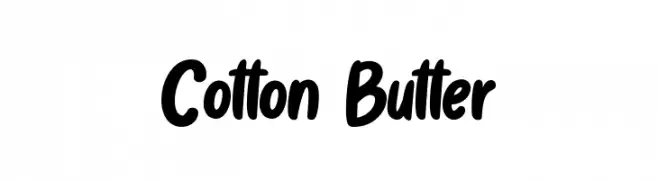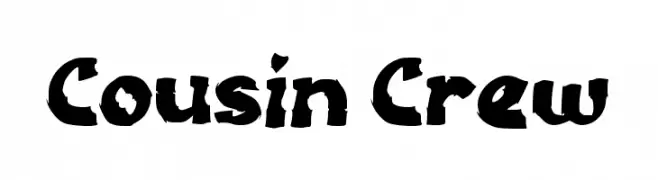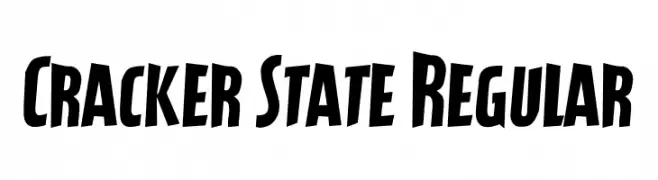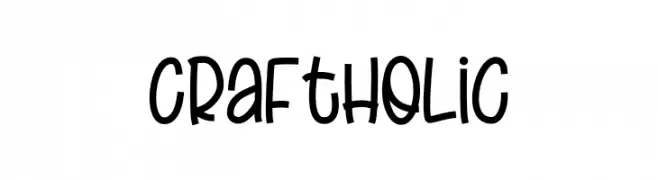
( Fonts by Four Lines )
A bold, handwritten font with smooth, rounded edges and a playful style.
( Fonts by Pinisiart )
A bold, angular font with a geometric and modern design.
( Fonts by Matthew Austin Petty - www.disturbed.com )
A playful, hand-drawn font with irregular, organic shapes and a whimsical style.
( Fonts by wep )
A bold, rugged font with a hand-drawn, graffiti-like style.
( Fonts by Luedecke Design Font Co. - ldfonts.weebly.com )
A bold, playful font with thick, uneven strokes and a hand-drawn feel.
( Fonts by Linafis Studio )
A bold, dynamic font with a slight slant and strong visual impact.
A bold, edgy font with sharp angles and dynamic strokes.
( Fonts by Nirmana Visual )
A playful, hand-drawn font with a whimsical and friendly style.
( Fonts by Nirmana Visual )
A playful, hand-drawn font with bold, rounded characters and a whimsical style.